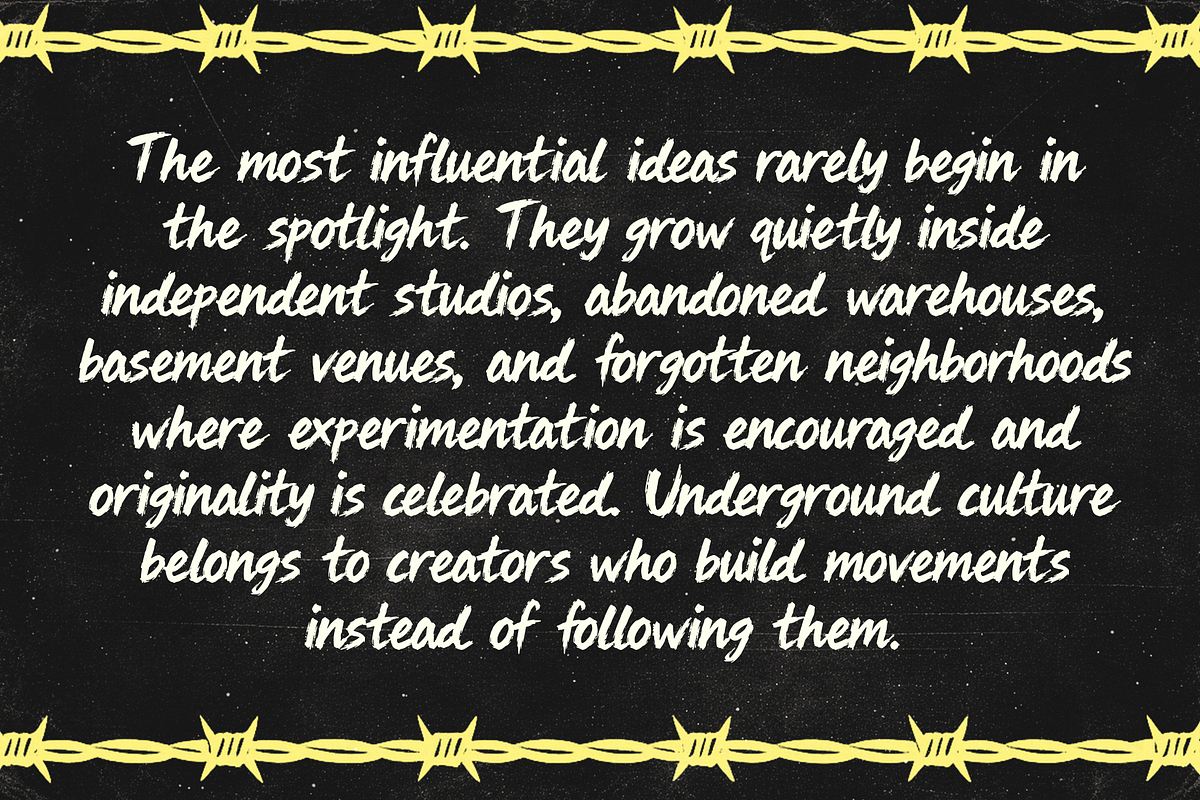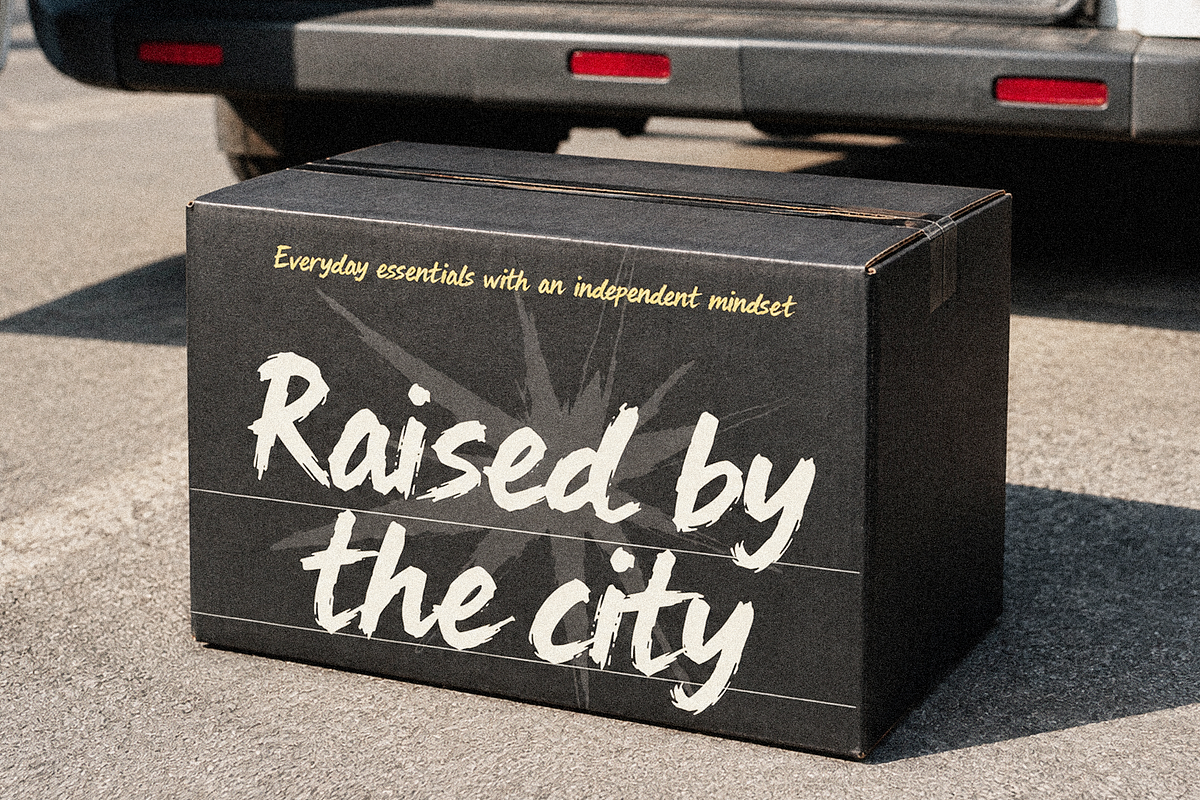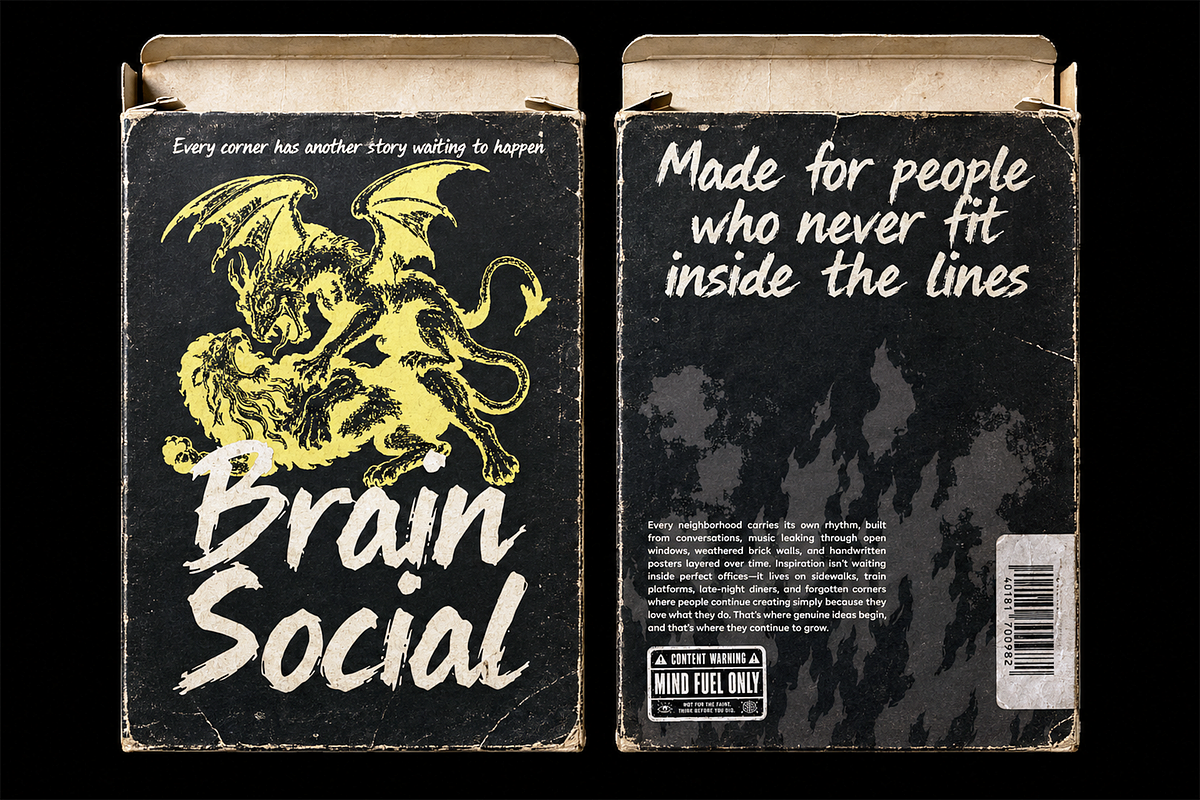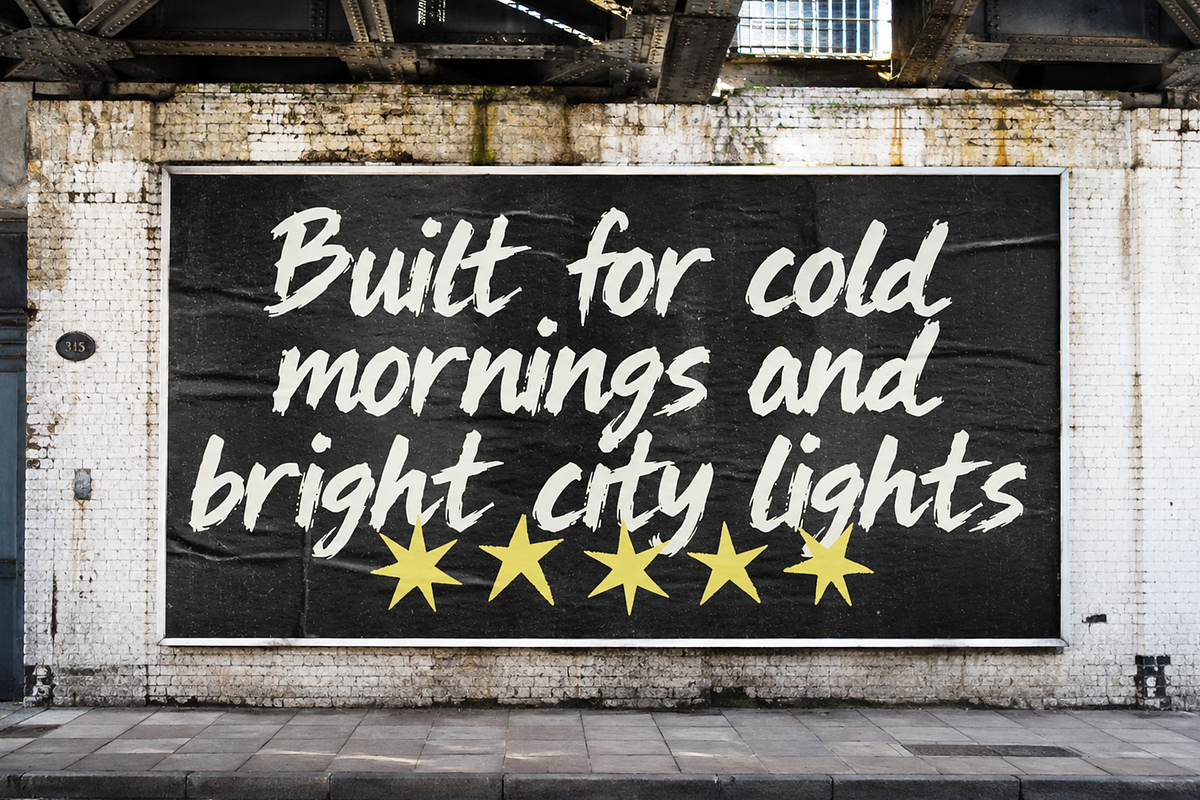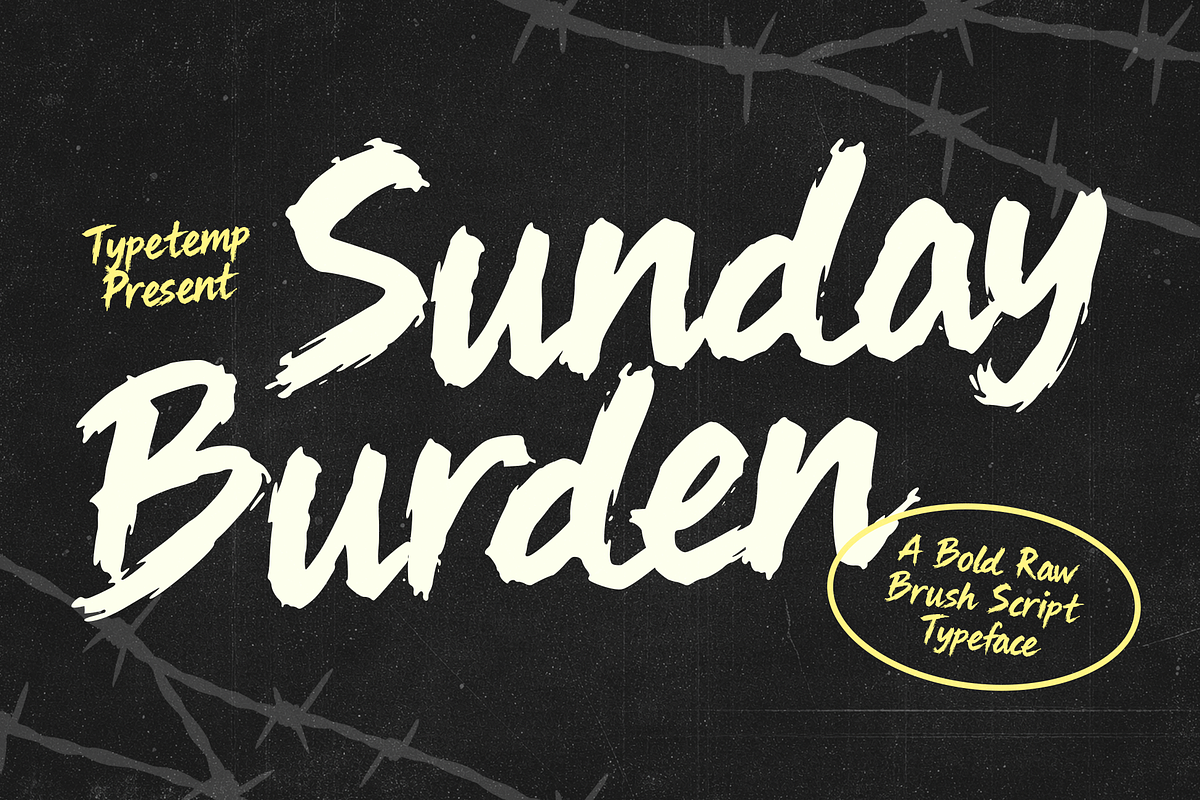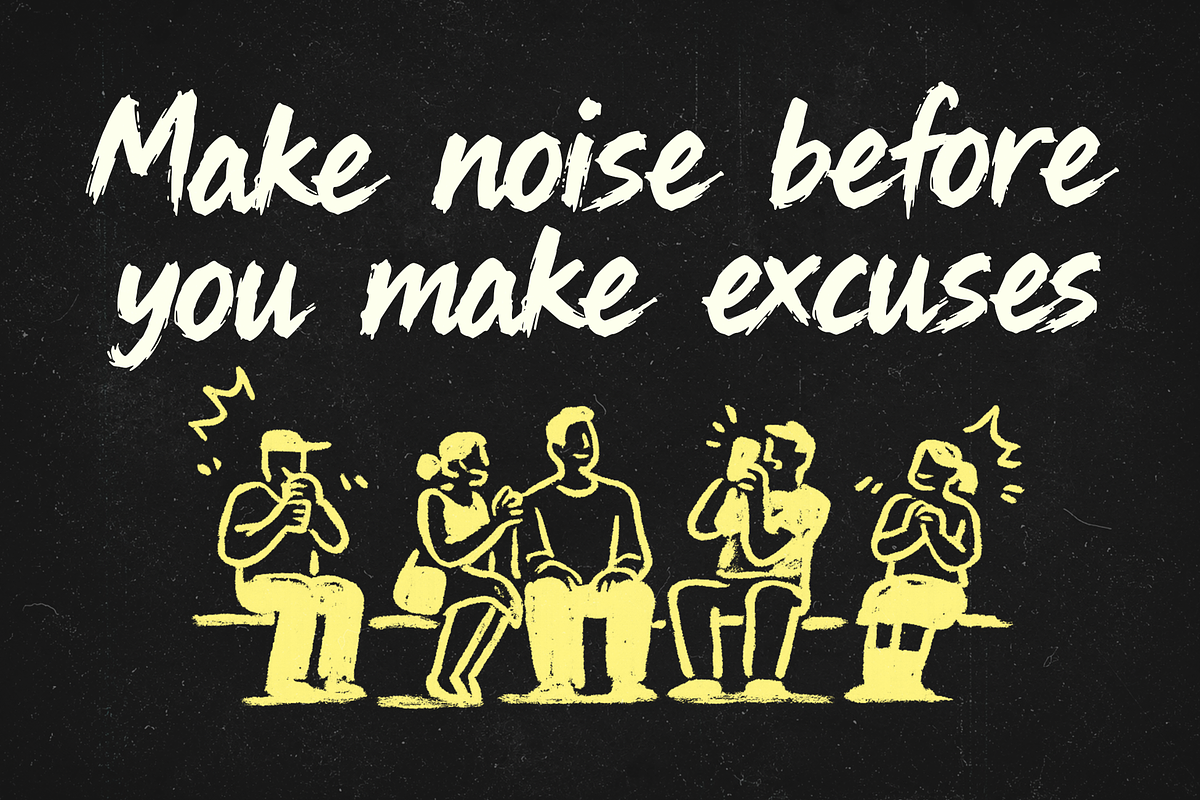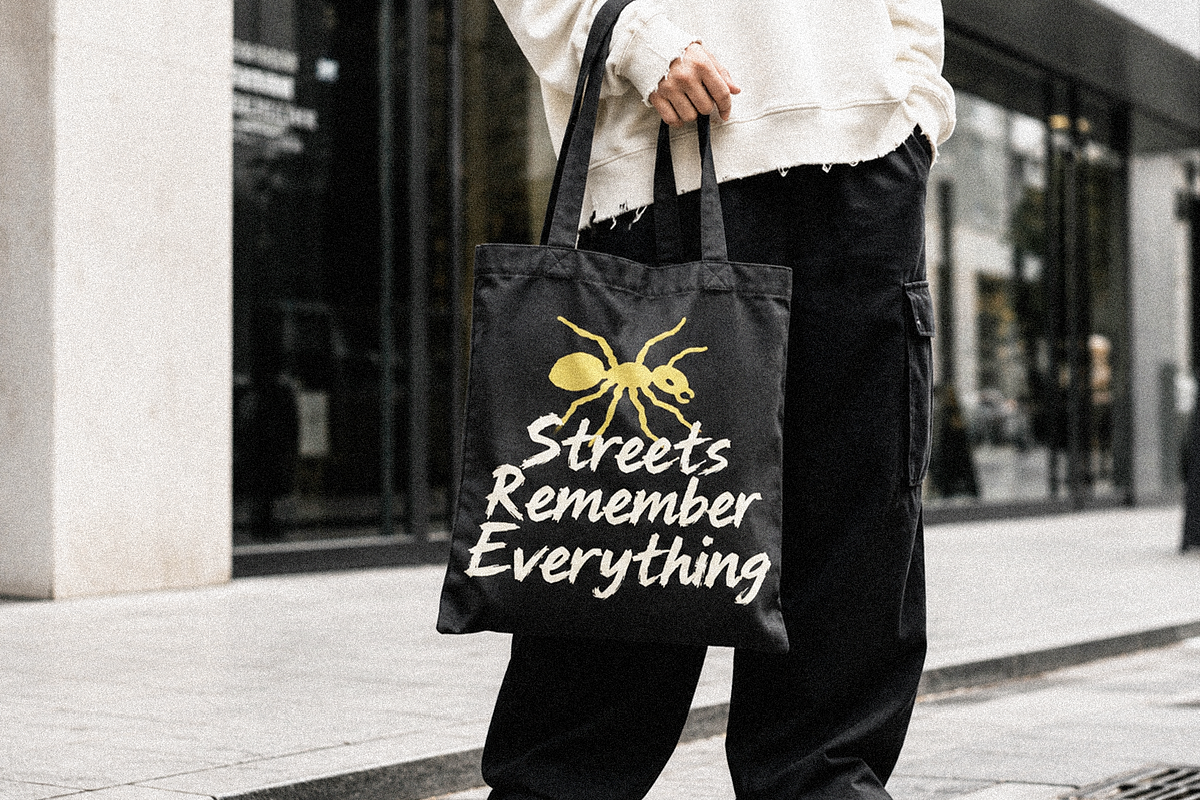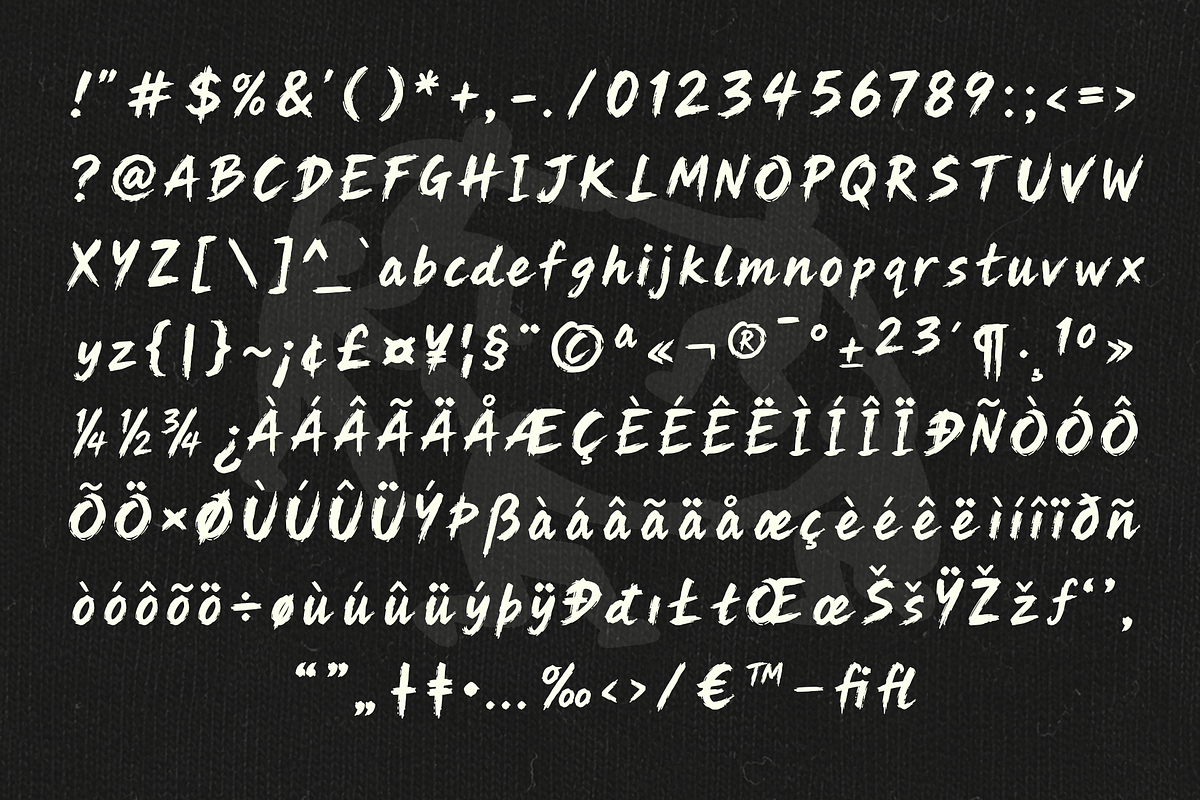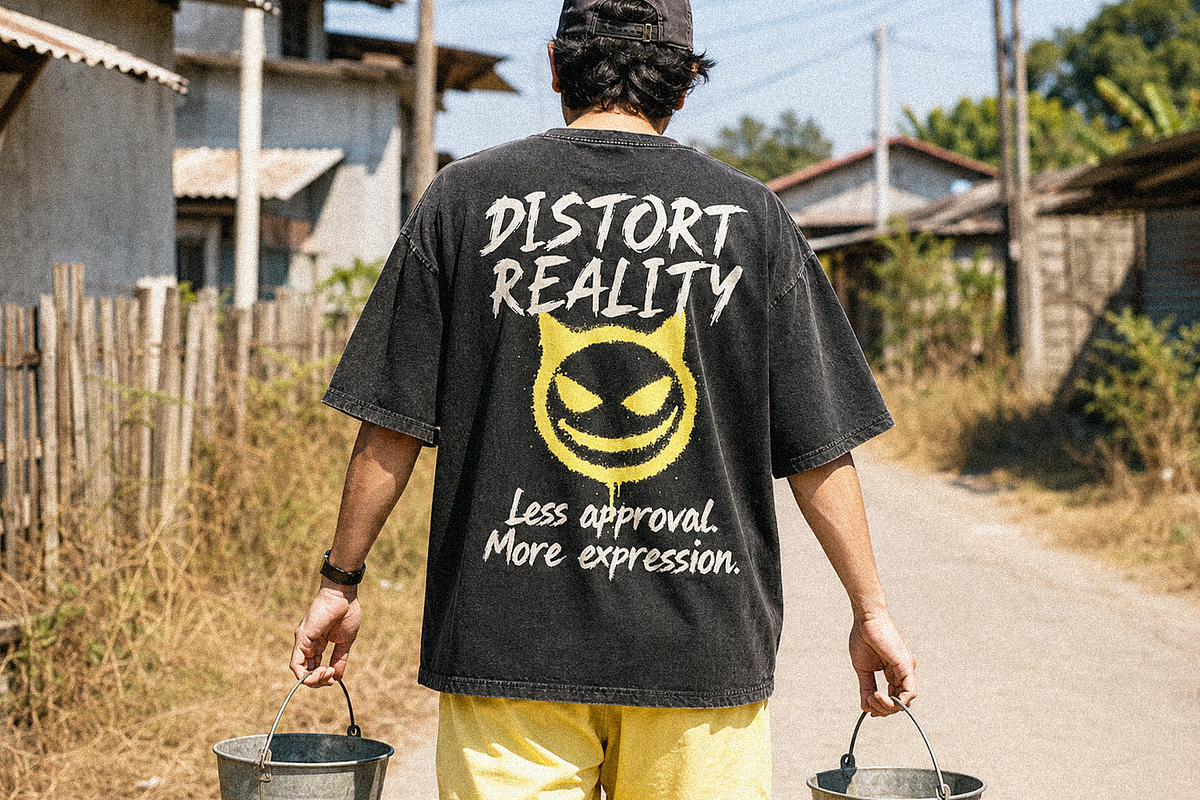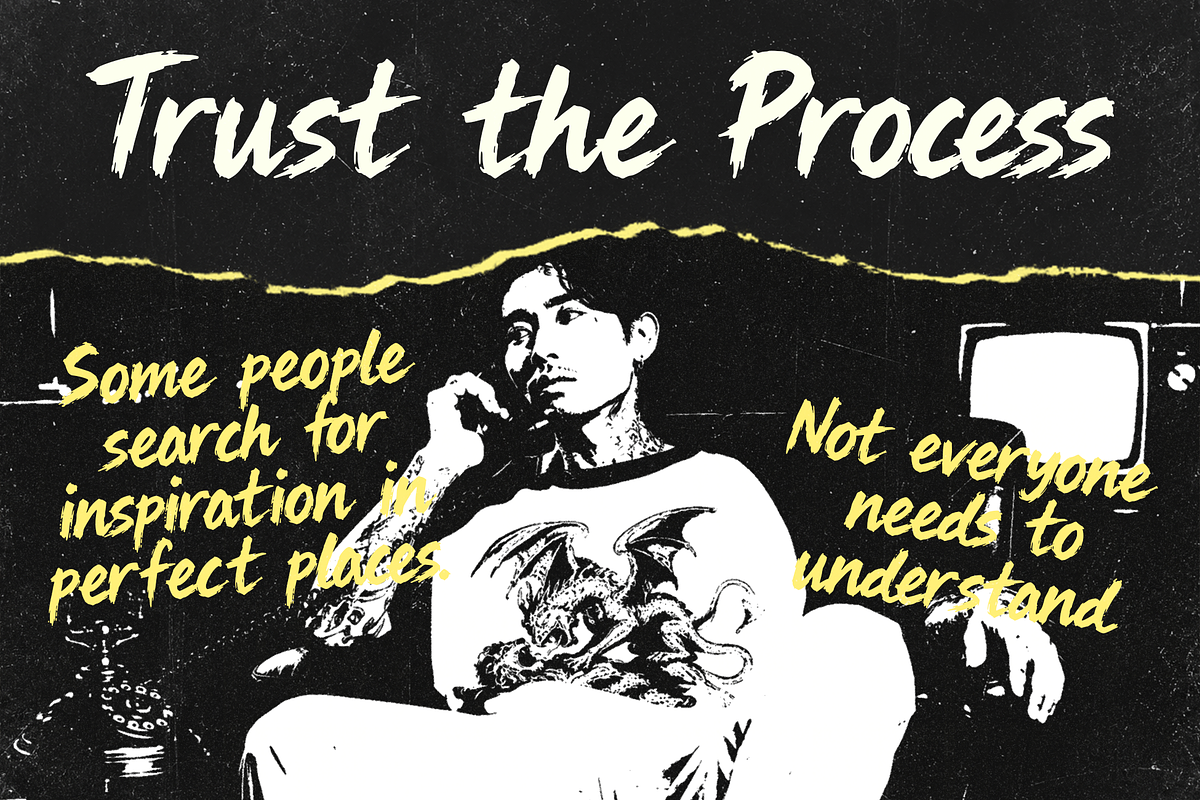
Sunday Burden Bold Raw Brush
Sunday Burden is an expressive, bold raw brush script typeface presented by Typetemp. Characterized by aggressive dry-brush textures, sharp movement, and raw hand-painted stroke edges, this font captures a gritty urban, street-art, and punk-rock aesthetic. Its high-impact handwritten flow makes it an exceptional choice for prominent headlines and edgy display compositions that need a raw, authentic edge.
- Authentic raw brush texture with energetic dry-stroke details.
- Bold script letterforms designed for strong visual impact.
- Edgy street culture and grunge-inspired handwritten aesthetic.
Detailed Usage
- Logos & Branding: An outstanding choice for urban concepts, skate culture labels, creative studios, rock bands, and action sports brand.
- Packaging Design: Perfectly upgrades craft beverage cans, energy drinks, street-food containers, hot sauce labels, and bold artisanal products.
- Editorial & Posters: A powerful option for music festival flyers, event posters, street-art exhibition guides, album artwork, and magazine headers.
- Digital Content: Elevates thumbnail graphics, gaming banners, energetic social media layouts, website hero sections, and edgy video text overlays.